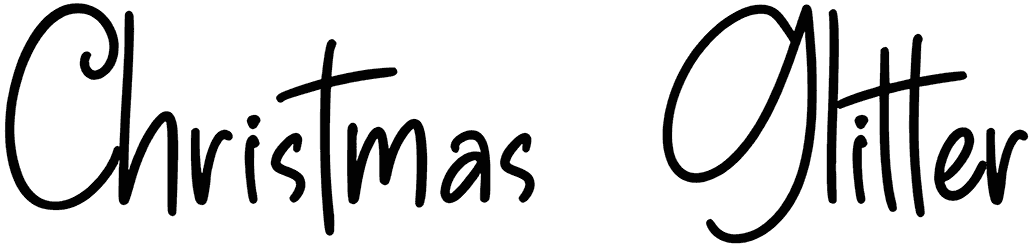
Christmas Glitter Font
If you want to create a stunning design, say goodbye to simple styles of words and use this lovely handwritten font to leave a lasting impression on your followers. The characters are natural and minimal, and the final showcase is going to be delightful. The Christmas Glitter font will serve as a perfect selection for a Thanksgiving invitation poster or any design that you want.